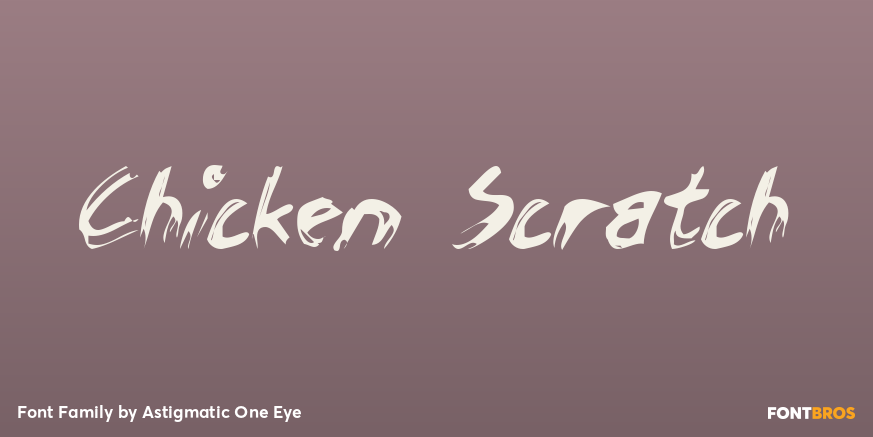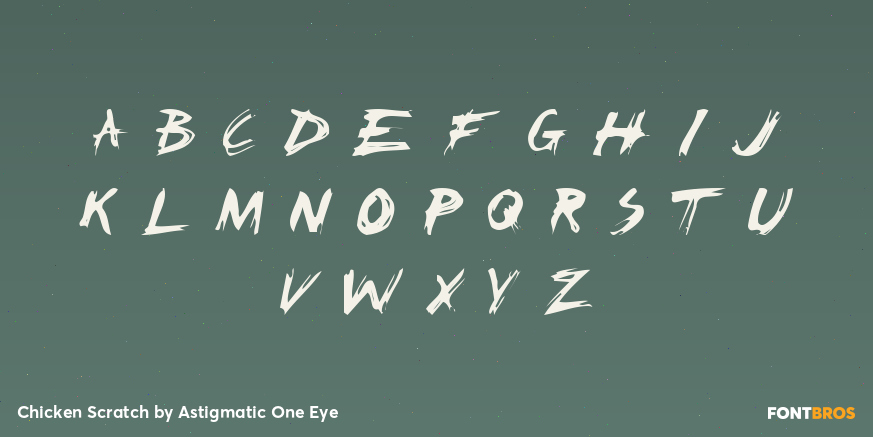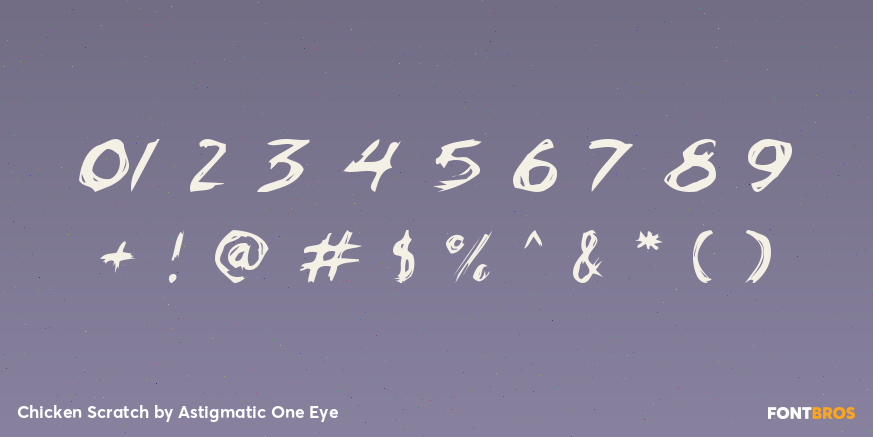
Chicken Scratch
Font Family by Astigmatic One Eye
Chicken Scratch is a playful handwritten script with a loose, sketchy feel that gives type a casual, offbeat personality. Its uneven strokes and lively rhythm create an informal, human look that feels spontaneous rather than polished, making it a strong choice when you want typography with charm and a little mischief.
Offered here as a 1-style family by Astigmatic One Eye, this font is especially suited to fun display work, crafty graphics, quirky branding, posters, social graphics, and other projects that benefit from a hand-drawn touch. If you’re after lettering that feels friendly, wacky, and unmistakably handmade, this one brings that character across quickly.